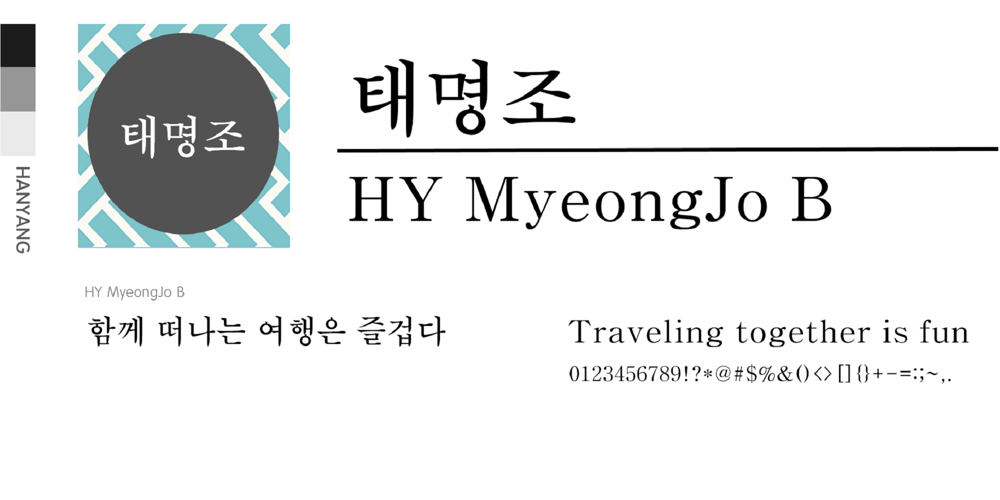
HY MyeongJo B Font Family was designed by font hy and published by HY Font. HY MyeongJo B contains 1 styles and family package options. While the HY Taegothic font has a modern and strong design, the HY Taemingjo font features a traditional Mingjo font style.The traditional Myeongjo font style goes well with titles and emphasized text.